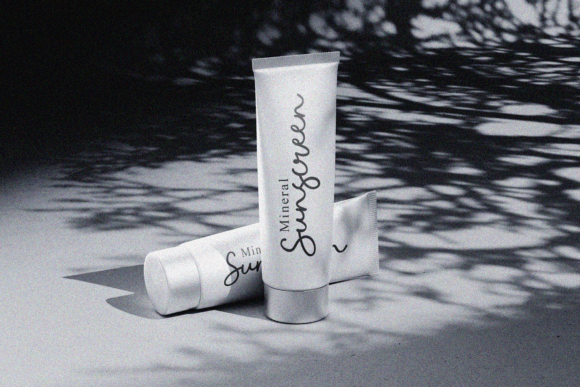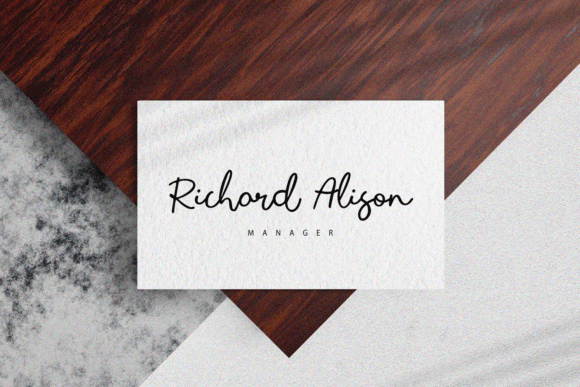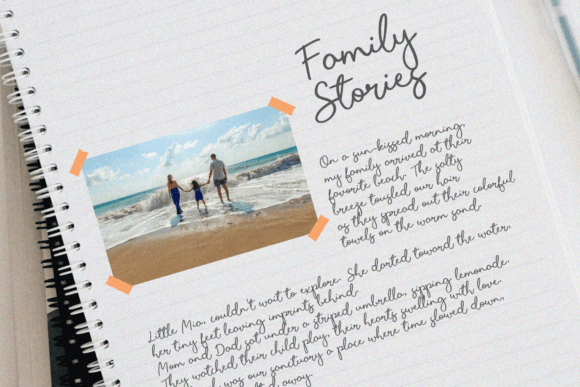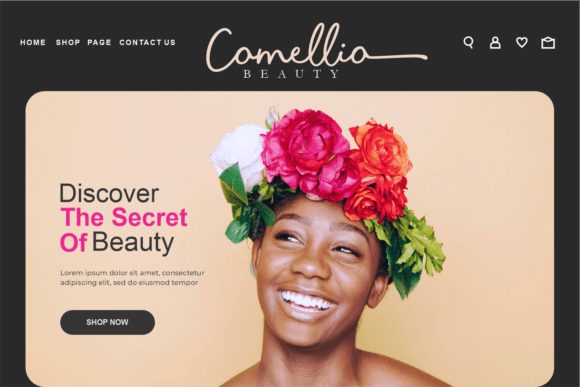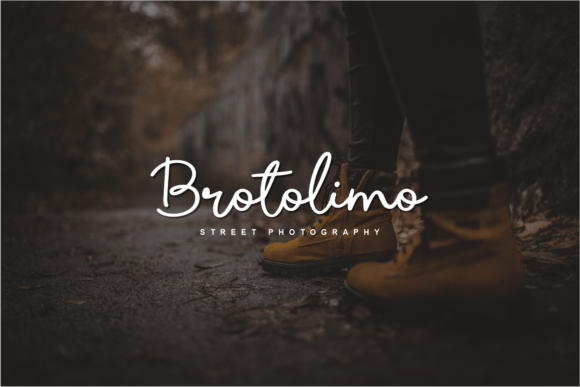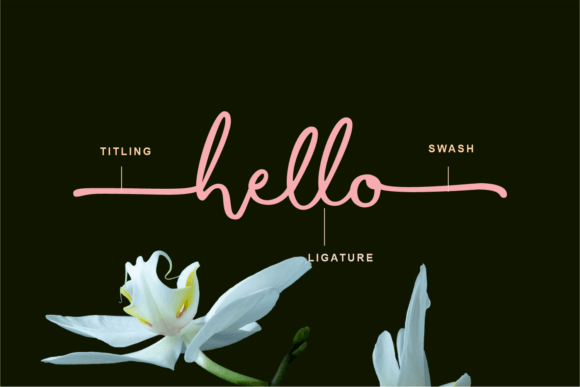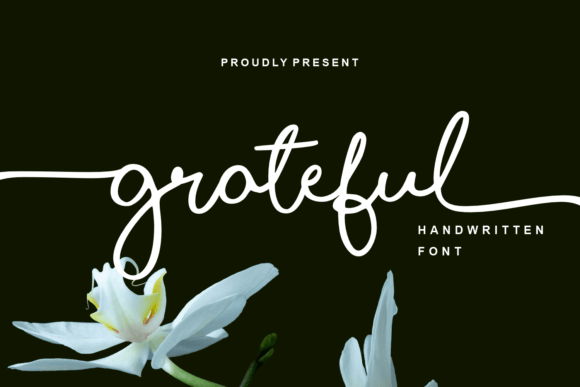
Discover the Artistic Charm of Grateful Font: Elevate Your Designs with Elegance and Warmth
Are you a designer or crafter looking for a font that can add a touch of elegance and warmth to your projects? Look no further than Grateful Font, a beautiful handwritten font that brings artistic charm and smooth sophistication to your designs. In this article, we’ll dive into the world of Grateful Font and explore its versatility, making it an absolute gem for various design endeavors.
The Beauty of Grateful Font
Grateful Font is a stunning example of handwritten beauty meets smooth elegance. This graceful font breathes life into your designs, making it perfect for artistic posters, captivating illustrations, expressive wedding invitations, customized birthday greeting cards, and eye-catching product packaging. With Grateful Font, you can add a personal touch to your designs, making them stand out from the crowd.
The versatility of Grateful Font knows no bounds. Whether you’re working on a creative project or a commercial one, this font is sure to impress. Here are some design ideas to get you started:
- Artistic Posters: Create stunning posters that showcase your artistic side with Grateful Font. From motivational quotes to beautiful landscapes, this font will add a touch of elegance to your designs.
- Captivating Illustrations: Bring your illustrations to life with Grateful Font. This font is perfect for adding text to your illustrations, making them more engaging and visually appealing.
- Expressive Wedding Invitations: Make your wedding invitations truly special with Grateful Font. This font adds a touch of warmth and romance to your invitations, making them unforgettable.
- Customized Birthday Greeting Cards: Create personalized birthday cards that will make the recipient feel special. Grateful Font is perfect for adding a heartfelt message to your cards.
- Eye-Catching Product Packaging: Stand out in the market with Grateful Font on your product packaging. This font will add a touch of sophistication and elegance to your products.
Enhance Your Digital Content
Grateful Font is not just limited to print designs. It can also enhance your digital content, making it more engaging and visually appealing. Here are some ways you can use Grateful Font in your digital projects:
- Website Titles: Add a touch of elegance to your website titles with Grateful Font. This font will make your website stand out and give it a professional look.
- Blog Post Headlines: Make your blog post headlines more engaging with Grateful Font. This font will add a touch of warmth and individuality to your headlines.
- Social Media Projects: Use Grateful Font in your social media projects, such as inspirational quotes, motivational posters, and more. This font will help you spread your positive message in the most aesthetically pleasing way.
Unleash Your Creativity
Grateful Font is more than just a font – it’s a tool that can help you unleash your creativity. With its effortlessly sophisticated design, you can elevate your next design project and make it truly special. Whether you’re a designer, crafter, or DIY enthusiast, Grateful Font is sure to inspire you to create something beautiful.
In conclusion, Grateful Font is a beautiful handwritten font that can add a touch of elegance and warmth to your designs. With its versatility and smooth sophistication, it’s perfect for various design endeavors, from artistic posters to digital content. Unleash your creativity and elevate your next design project with Grateful Font. Try it today and see the difference it can make!